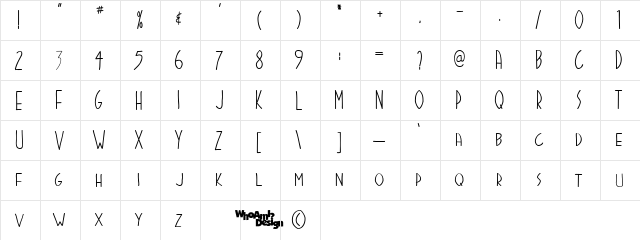
Stigmata Regular
Design Context for Stigmata Typeface
Stigmata is a composed and adaptable typeface that performs quietly and consistently across a wide range of design contexts.